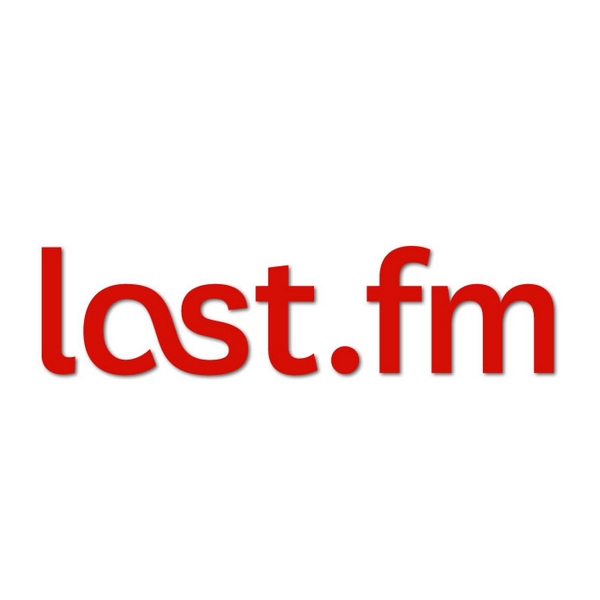
Last.fm Font
Fonts in UseLast.fm is a music streaming service and social network that uses your listening history to recommend new music and connect you with like-minded listeners. It was founded in 2002 and is currently owned by CBS Interactive.
It's likely that the Last.fm logo was created by incorporating ligatures into the letters "a" and "s" of the National typeface, which is a commercial font created by Klim Type Foundry. For additional information about the font, you can visit here.